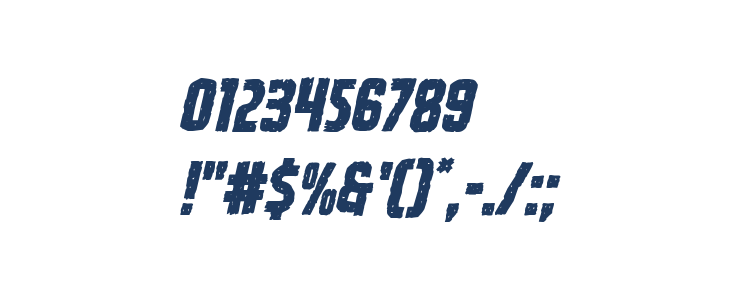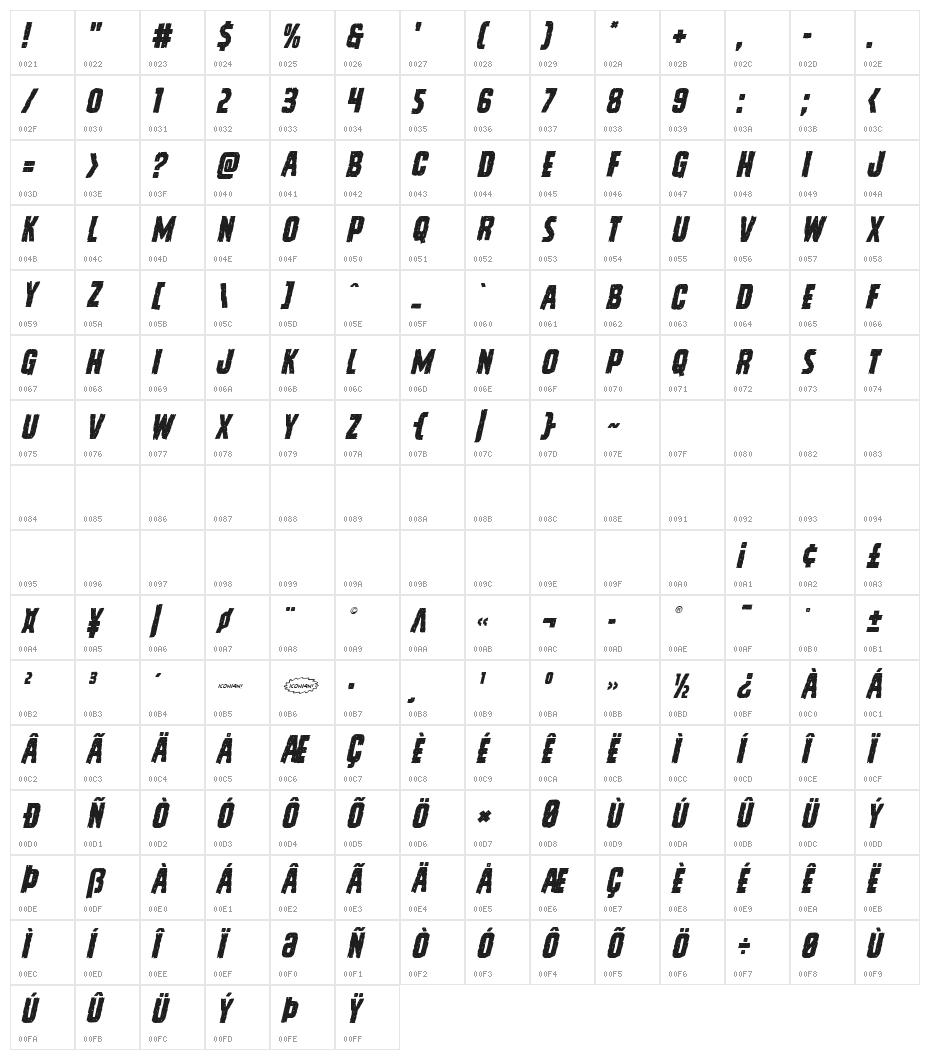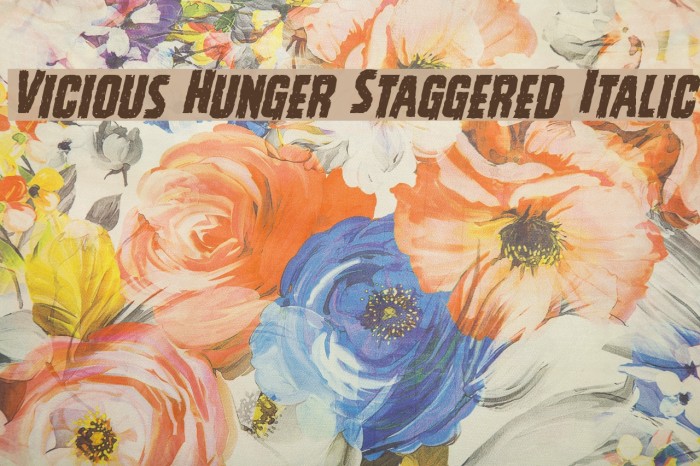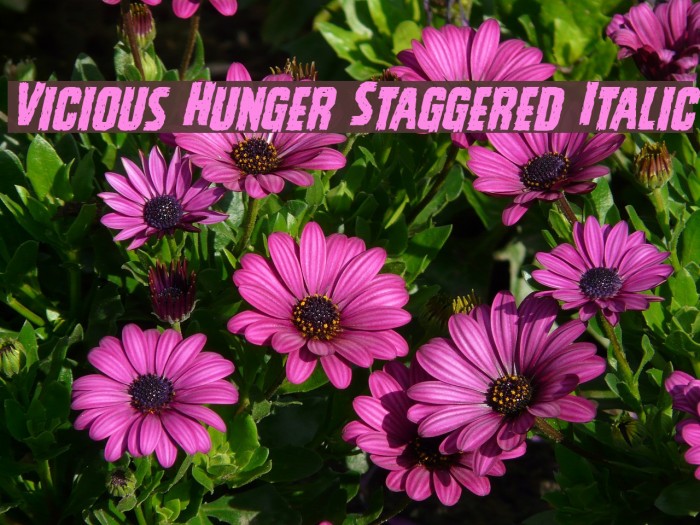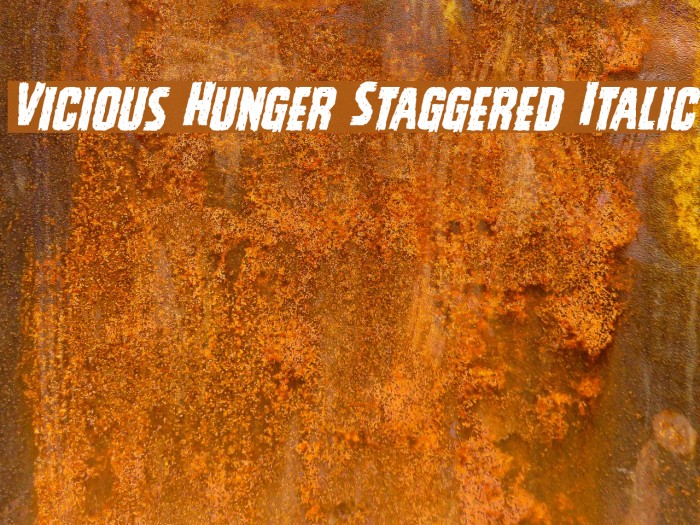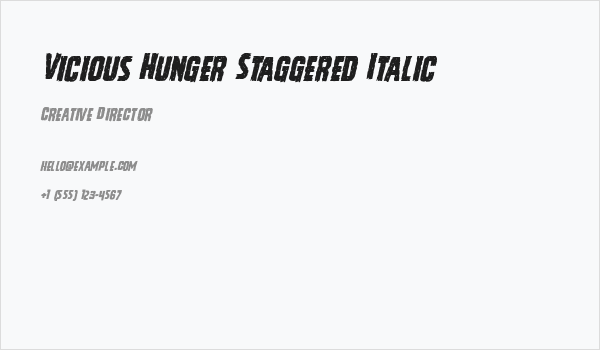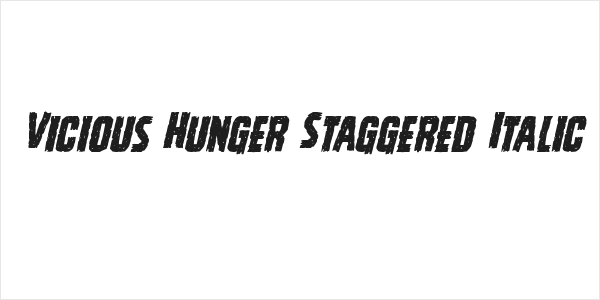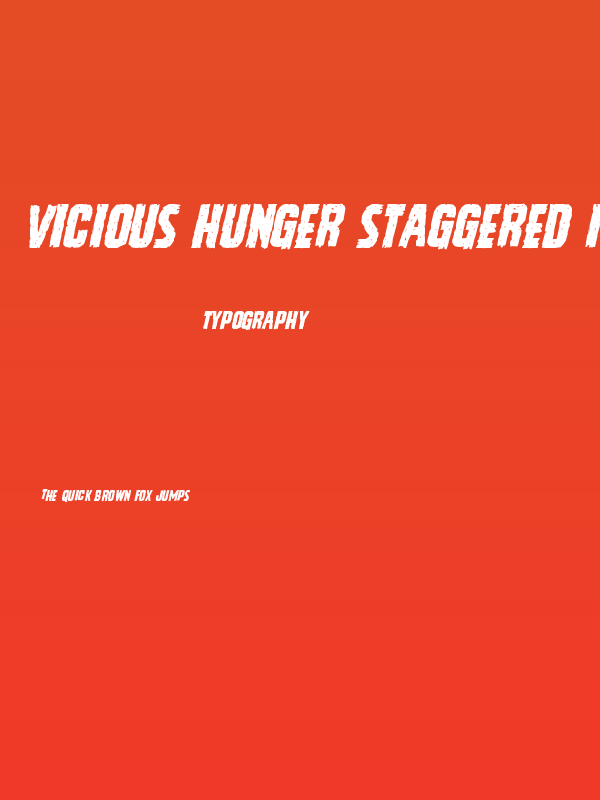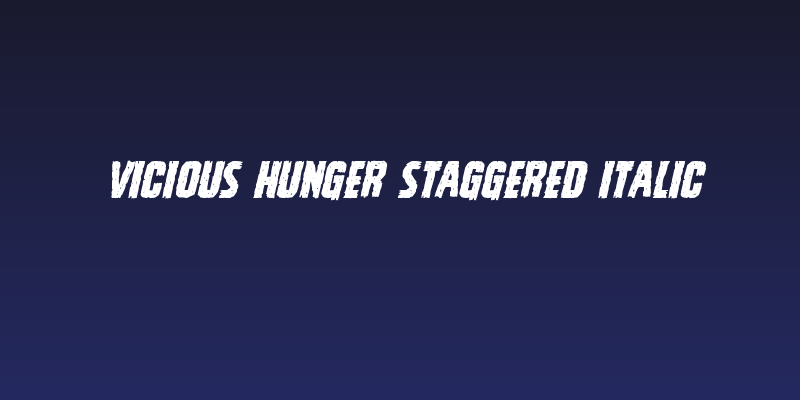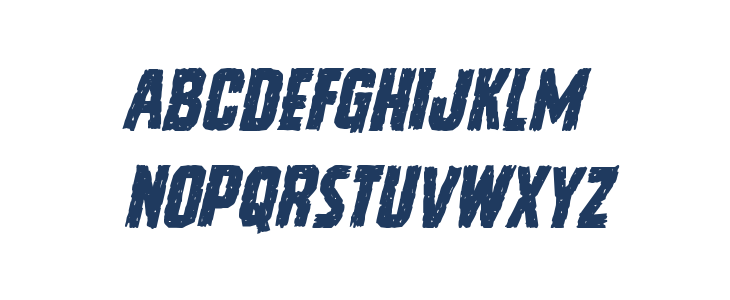
Vicious Hunger Staggered Italic Font
Vicious Hunger Staggered Italic Description
This font exhibits a bold and aggressive style with a distressed texture, giving it a rugged and dynamic appearance. The characters are italicized, adding a sense of motion and urgency. The uppercase and lowercase letters maintain a consistent weight, contributing to a cohesive look. The numbers and special characters share the same distressed and bold characteristics, ensuring uniformity across all glyphs. The overall design is impactful and eye-catching, making it suitable for projects that require a strong visual statement.